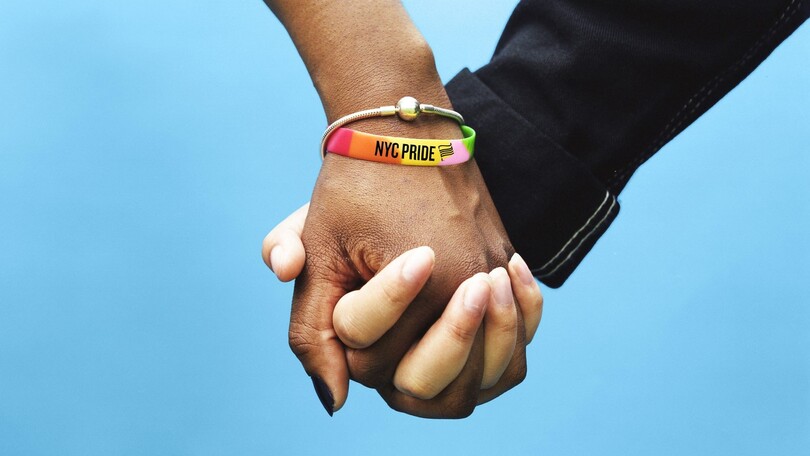
An inclusive new identity for NYC Pride.
Knockout and Gotham are ideal choices to help tell the story of NYC Pride’s history and mission of inclusivity while conveying that it’s more than just an annual celebration—it’s a year-round commitment to equality.
Sara Soskolne, Creative Type Director.
Monotype and Lippincott partnered up to create a bold, inclusive new identity for NYC Pride, the marquee event held every year by Heritage of Pride, one of the most iconic, enduring LGBTQIA+ organizations in the country.
40-plus years after the Stonewall Uprising in Greenwich Village, Heritage of Pride had arrived at a crossroads of sorts. Formed in the aftermath of Stonewall, the group’s legacy is woven into the full sweep of the modern LGBTQIA+ movement. As the organizer of the iconic NYC Pride march, The Rally, and other marquee events, Heritage of Pride has seen it all—from the early days of proudly defiant public demonstration through all the challenges, victories, and progress since.
Over the years, however, the organization never settled on a single, consistent brand identity for its centerpiece event, NYC Pride, choosing instead to change the visuals in keeping with each year’s theme.
The Heritage of Pride leadership team recognized it needed an enduring, resonant brand identity to help it drive equity and raise awareness around the organization’s incredible impact. Lippincott eagerly came on board to help Heritage of Pride develop a new brand identity for NYC Pride that would reflect the organization’s immense contributions to the LGBTQIA+ movement and the crucial role it continues to play. Monotype was honored to be a part of this project.
The goal of the rebrand was to create a feeling of inclusivity and capture the spirit and importance of the organization’s home city. This is New York after all, and the significance of the city and its people to the LGBTQIA+ movement cannot be understated. Fittingly, the organization chose two typefaces with strong NYC roots to represent the brand: Gotham® and Knockout®, both from NYC-based Hoefler&Co®. and now part of the Monotype Library. More on them in a moment.
The project began with a new positioning that would act as a foundation for the brand and experience. The new brand purpose, to inspire and empower every LGBTQIA+ person to proudly love and live their truth, speaks to NYC Pride’s roots in protest, and the annual celebration’s power in unifying and advocating for its community.
The new visual identity is built around an inclusive, community-centric and truly identifiable flag emblem—one that draws from history and captures the full range of today’s movement. The iconic Pride flag, which has evolved into a universal symbol of safety, community, and allyship, is at the center of it all, capturing the organization’s spirit of celebration and activism. The flag subtly features the letters ‘NYC’, and features an adaptive gradient, providing storytelling flexibility and inclusivity for different subgroups within the LGBTQIA+ community.
Gotham and Knockout bring more than NYC street cred to the story. With its roots in the eclectic typography of 19th century broadsides, Knockout brings an enduring fighting spirit that honors the determination of Heritage of Pride’s decades-long push for equality and representation.
The unapologetically bold stature of Knockout perfectly counterbalances the friendly openness of Gotham, a contemporary take on a style of sign lettering found all over the streets of New York. Gotham’s elemental forms were made to express as broad a range of voices as possible. The prominent use of Gotham Condensed Extra Black allows the organization to speak in a voice that is both bold and welcoming, assertive and inclusive. Heritage of Pride joins a long list of prominent uses for Gotham, famously including the Obama campaign.
“I love seeing our typefaces put to use for such a meaningful cause and organization,” said Sara Soskolne, Creative Type Director at Monotype. “Knockout and Gotham are ideal choices to help tell the story of NYC Pride’s history and mission of inclusivity while conveying that it’s more than just an annual celebration—it’s a year-round commitment to equality.”
Jenifer Lehker, Partner, Design at Lippincott, added, “NYC Pride is recognized globally as a beacon of safety, community and allyship, but also as a symbol of protest and activism. Monotype understood this and beautifully contributed to our cause with the Gotham and Knockout font families, both of which truly convey the brand’s spirit and legacy.
“Pride began as a protest, and we wanted to capture a typographic voice reminiscent of bold, eye-catching posters used by protestors. Designed in NYC, Knockout and Gotham pay homage to the brand’s roots, while providing the visual boldness necessary to amplify the community’s voices.”
The fight for equality is never-ending, a fact that Heritage of Pride knows well. We hope this new identity for NYC Pride catapults the organization forward into a new era of advocacy and activism, and we are proud to play even a small role in that effort.